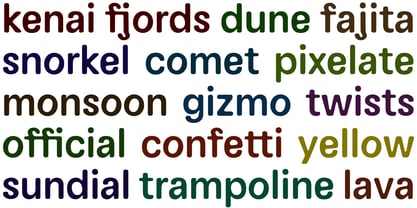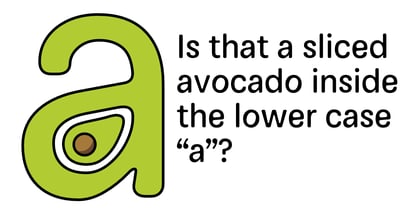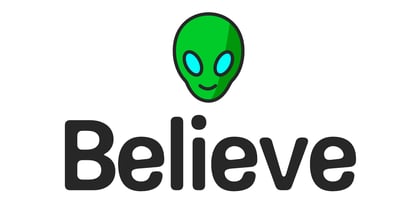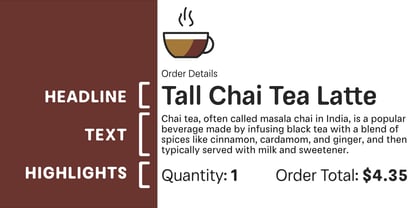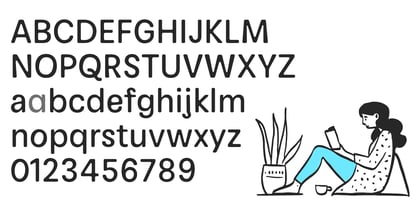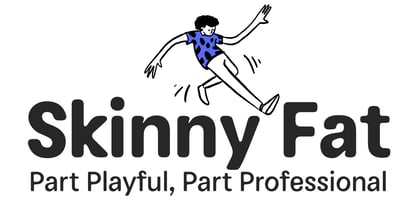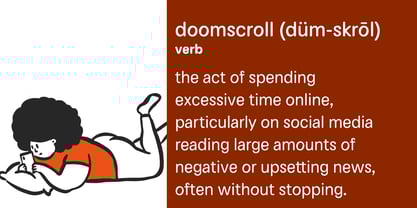
Skinny Fat
von Tall Chai
Die Schriftfamilie Skinny Fat wurde von Dar Meyer entworfen und von Tall Chai veröffentlicht. Skinny Fat enthält 6 Stile und Familienpaketoptionen.
Part Playful, Part Professional. Skinny Fat is an OpenType variable font family that expertly merges the worlds of fun and professionalism. With a design that plays between sleek and rounded forms, Skinny Fat offers a striking visual contrast, making it equally at home in creative, playful environments and more structured, corporate contexts. Its name perfectly captures the essence of the font—a juxtaposition of delicate, “skinny” strokes with bold, “fat” elements, creating a harmonious balance between lightheartedness and seriousness.
Skinny Fat is perfect for modern brands, digital platforms, and projects that need a font that speaks with both charm and authority. Its ability to straddle formal and informal tones makes it a go-to choice for designers looking for a typeface that can do it all—bold, approachable, and always on point.